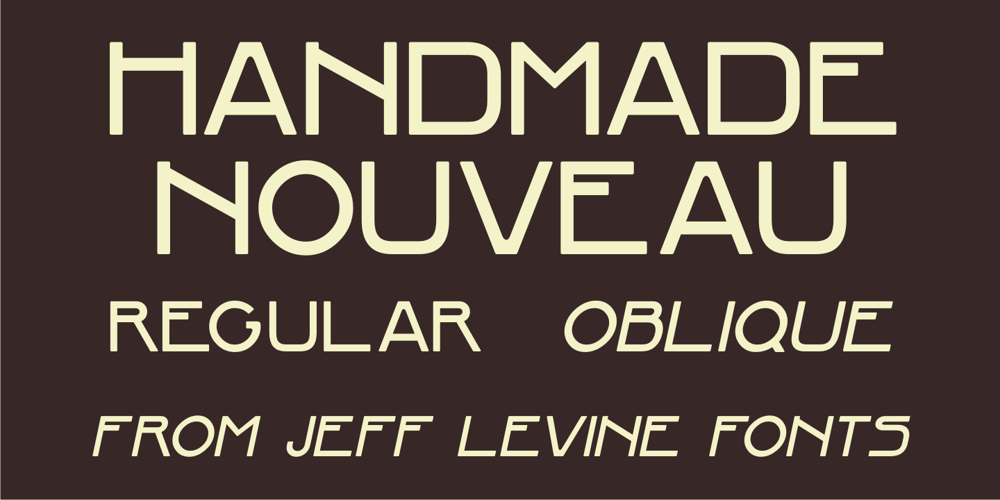
Handmade Nouveau JNL Font Family was designed by Jeff Levine and published by Jeff Levine. Handmade Nouveau JNL contains 2 styles and family package options. An example of Art Nouveau lettering (complete with its unusual characters and varying shape widths) was found in a sample from the vintage publication “Modeles de Lettres Artistiques” (“Models of Artistic Letters”). This classic design is now available digitally as Handmade Nouveau JNL, in both regular and oblique versions.